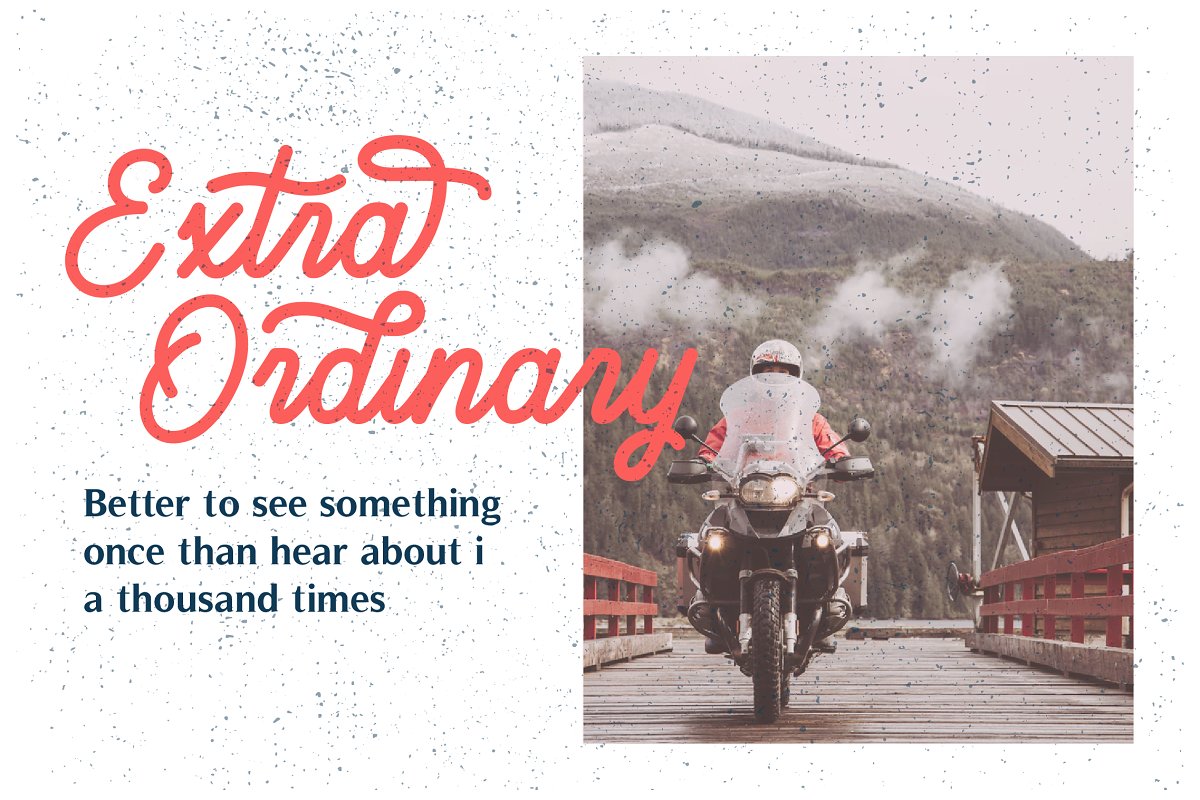
About the Brandon Smith Monoline Font
Introducing an elegant monoline font, Brandon Smith!Brandon Smith comes in two types of fonts, namely Brandon Smith Regular and Brandon Smith Stamp, Specific OpenType features include contextual alternates, stylistic alternates, initial and final forms, multiple alternate glyphs for many letters (accessed through the glyphs panel), multilingual support, ligatures, and standard numbers